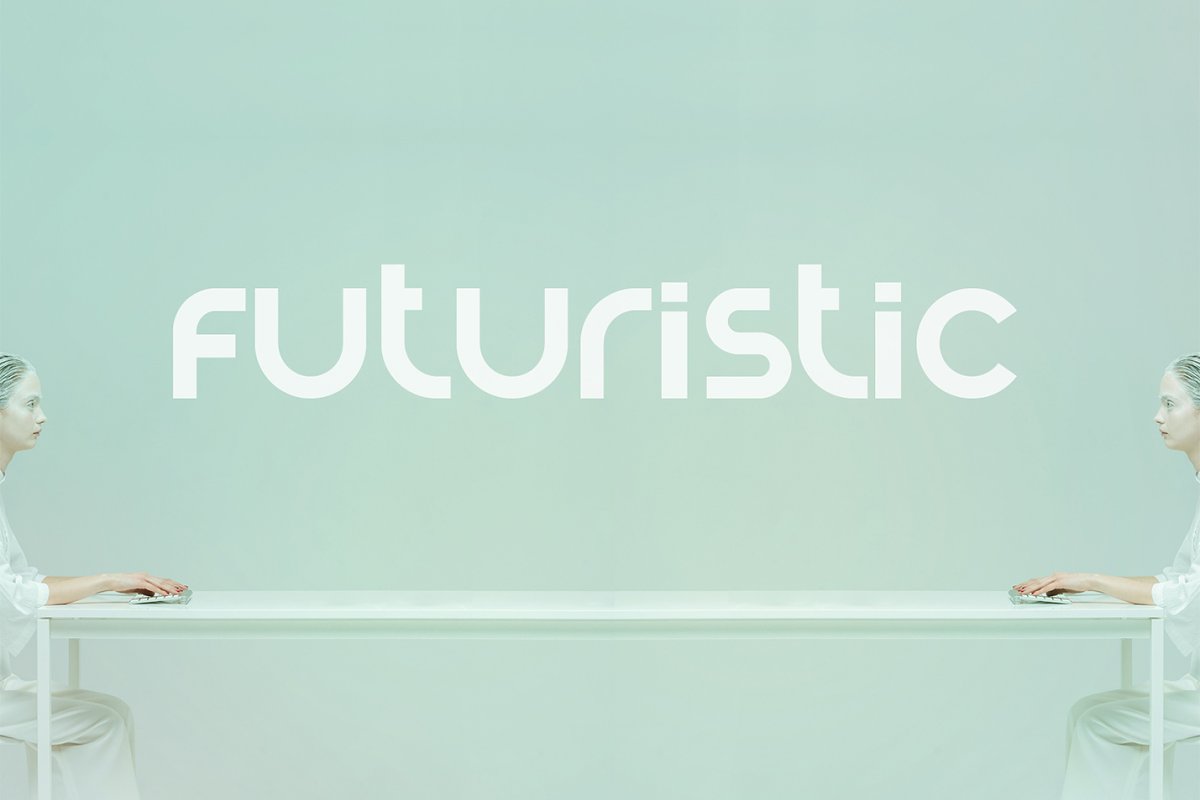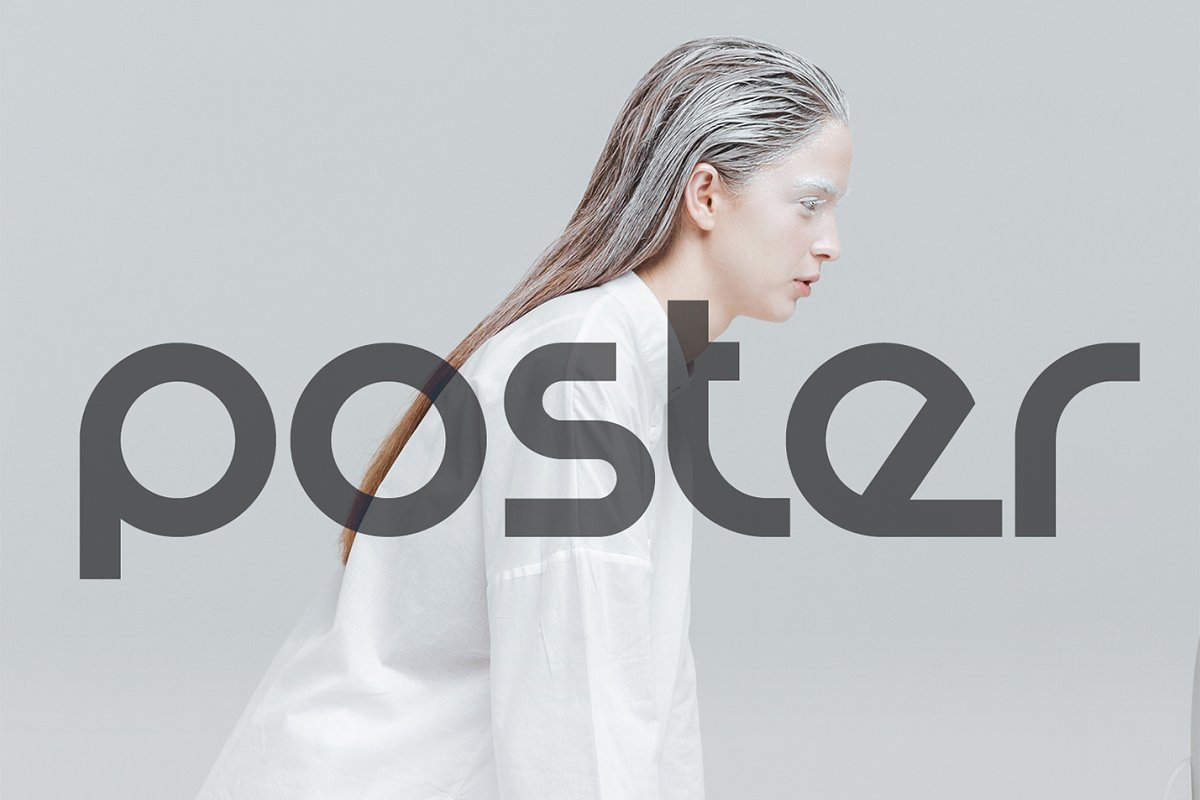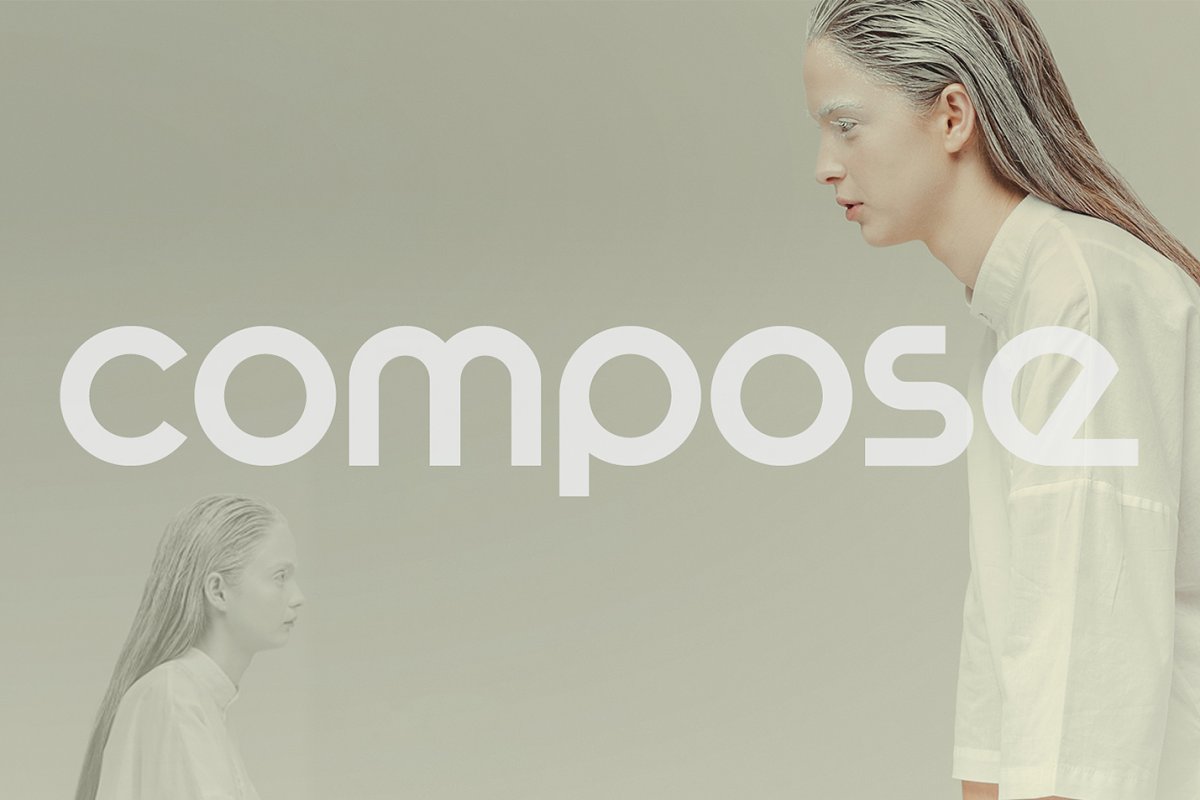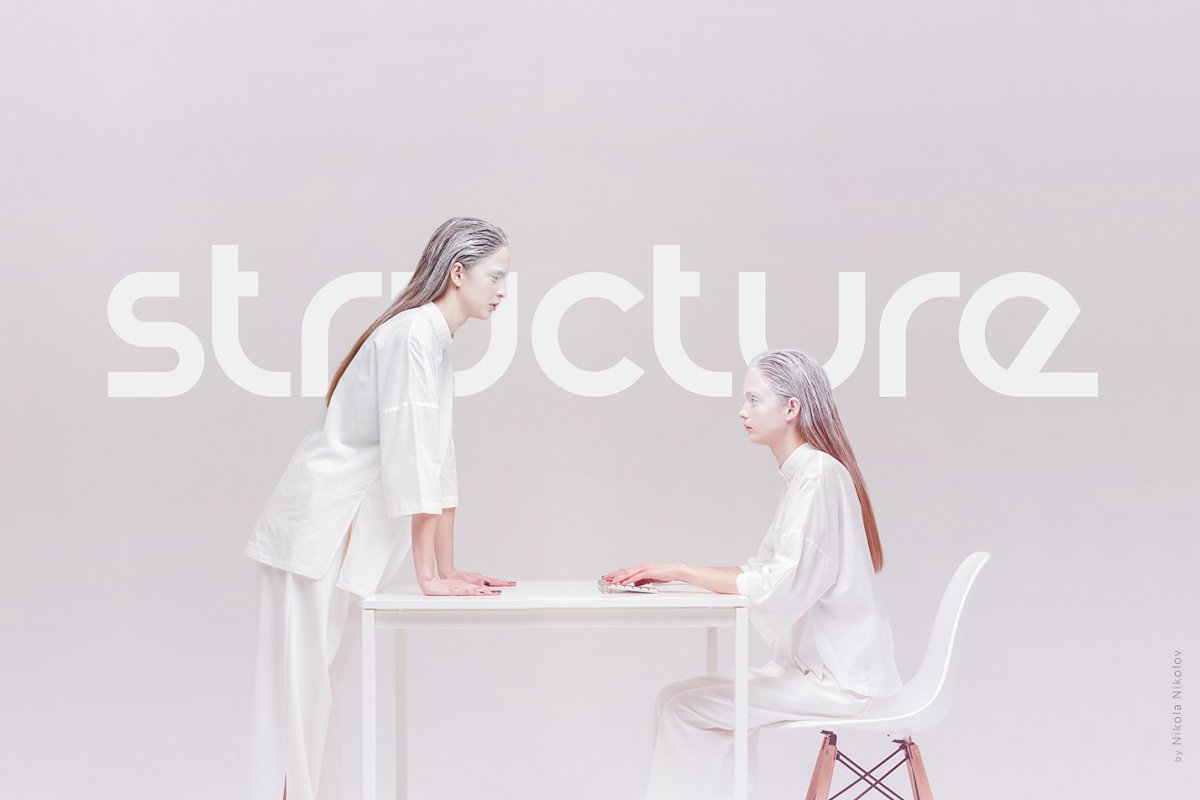
About the Orborn Round Futuristic Font
Orborn – Round Futuristic FontOrborn is a round geometric experimental font, Specifically developed to be suitable for logos, headlines, titles and posters, It has a pronounced futuristic vision and could be called a modern font, even though suits in a retro ambient, At the base of the font is the circle as I strive to keep the proportions of the circle in every glyph
I allowed myself complete freedom in designing this font with the idea to get an interesting but well-readable font, Features:All Caps & Small Caps LigaturesSymbols & PunctuationA total of 174 GlyphsOTF and TTF filesThanks so much!